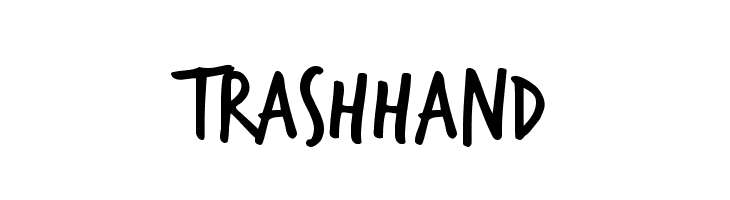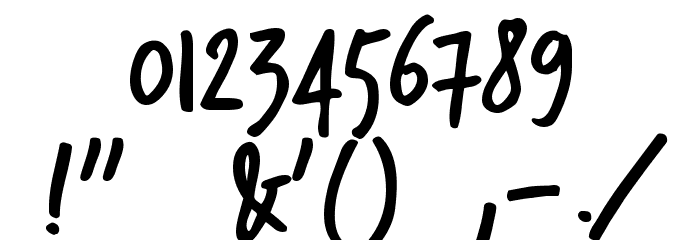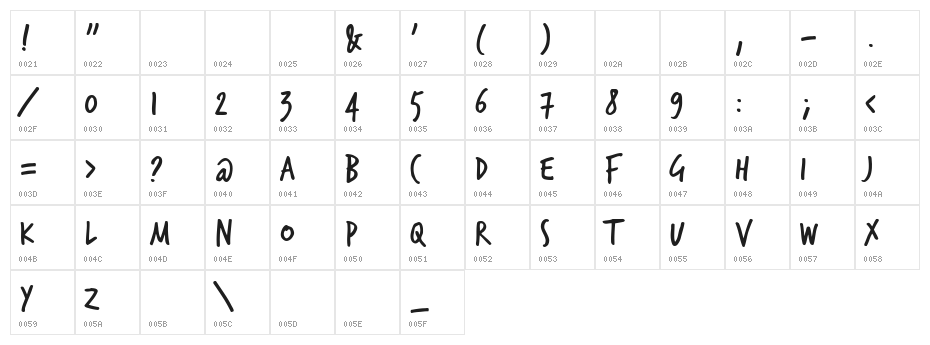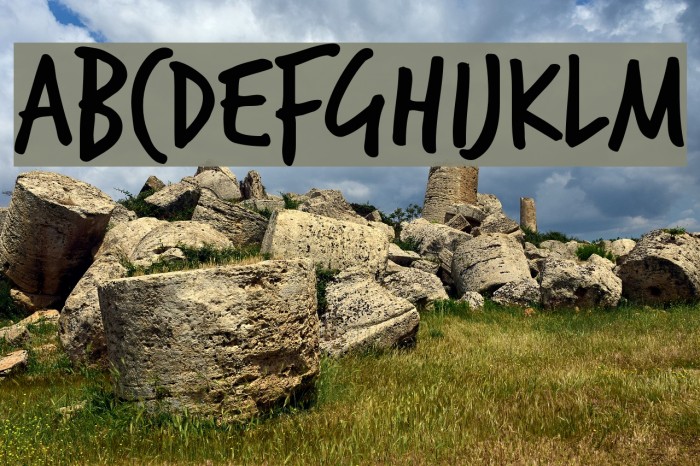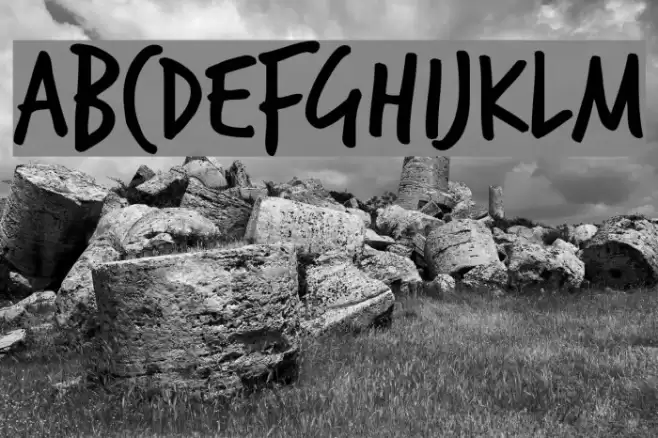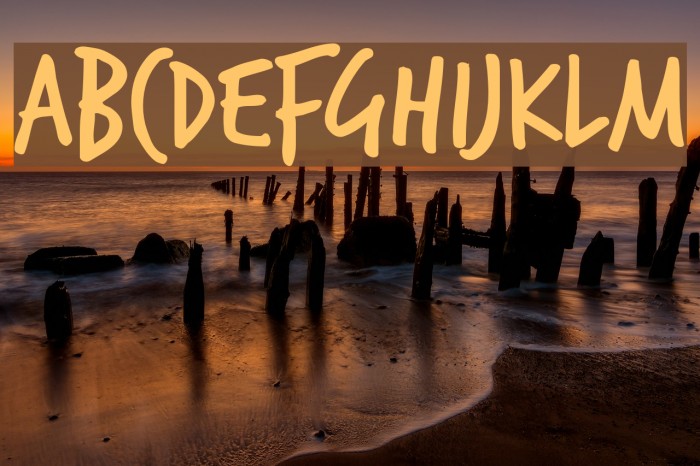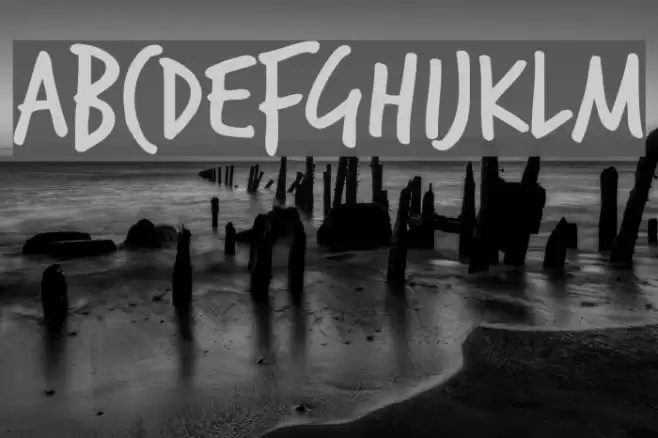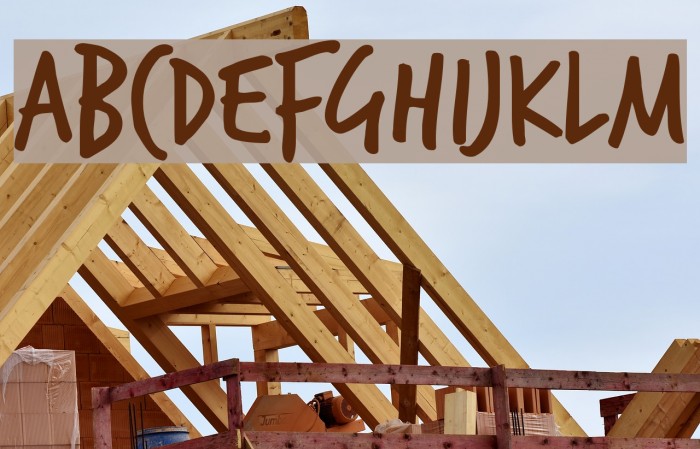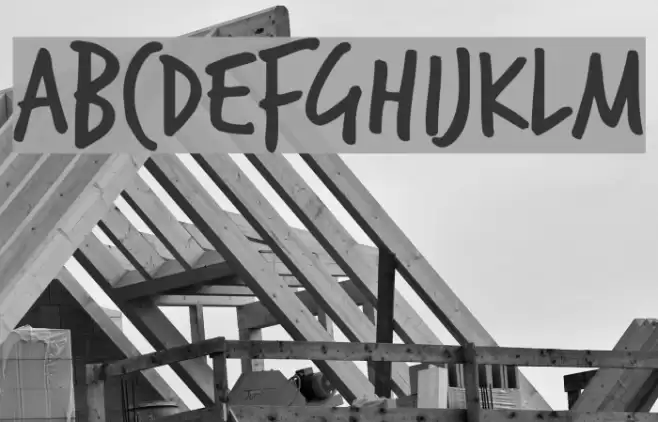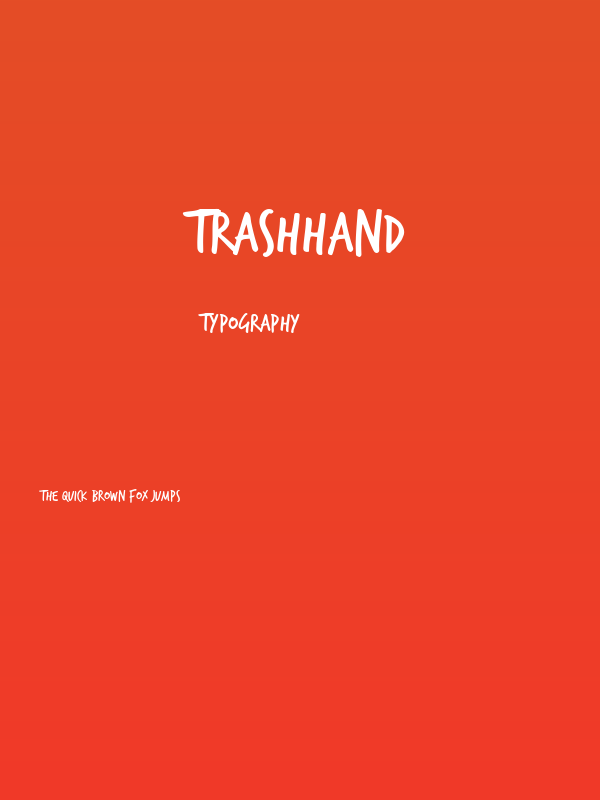
TrashHand Font
TrashHand Description
This font features a casual, handwritten style that exudes a playful and informal vibe. The letters are slightly slanted, with a natural flow that mimics the look of quick, confident handwriting. The strokes are uneven, adding to the organic feel, while maintaining legibility. The characters are bold and have a consistent thickness, which makes them stand out. The spacing between characters is normal, ensuring readability without sacrificing the font's unique personality. This font is perfect for projects that require a personal touch or a relaxed, approachable aesthetic.